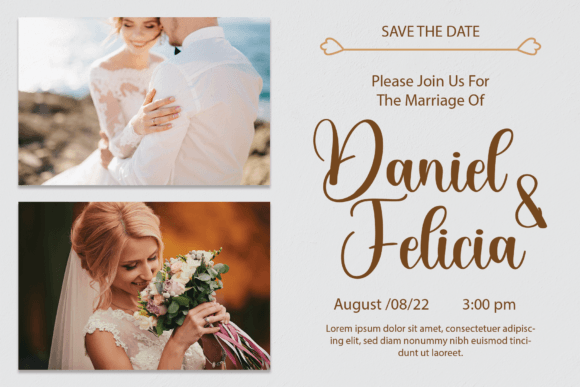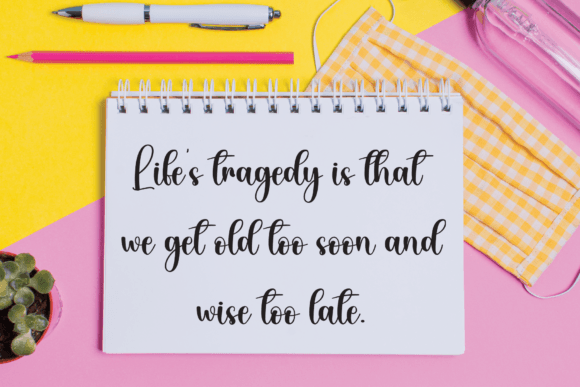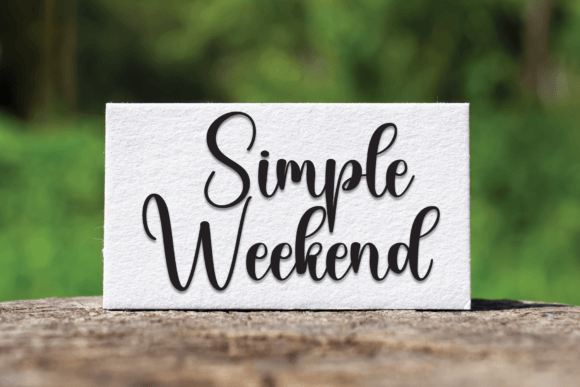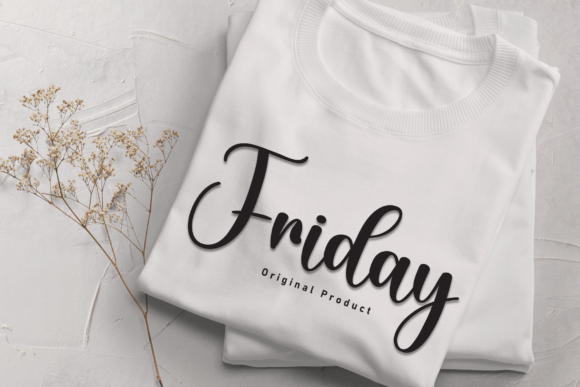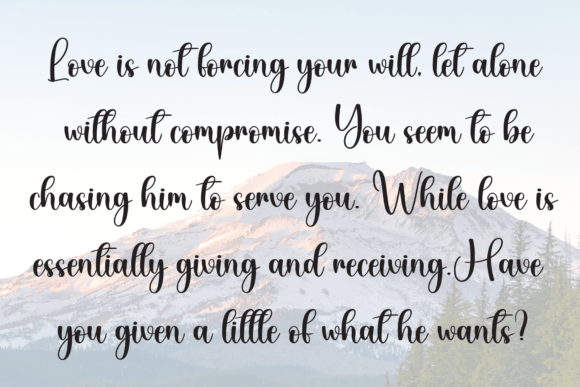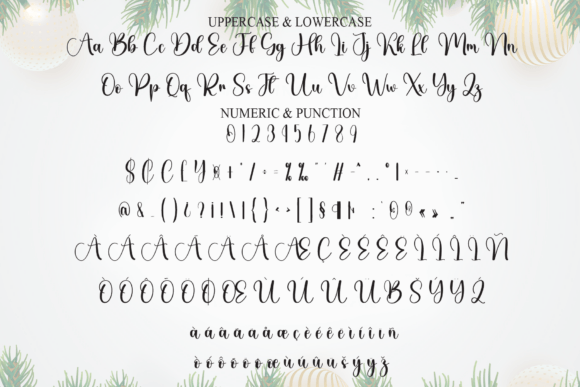
Discover the Whimsical Charm of Amelia Christmas Font
Are you looking for a font that adds a touch of playfulness and sweetness to your designs? Look no further than the Amelia Christmas Font. This delightful, handwritten display font is perfect for crafters and designers who want to infuse their creations with a friendly and whimsical vibe.
The Perfect Font for Playful Designs
Amelia Christmas Font is a beautifully crafted font that exudes a lighthearted and adorable nature. Its unique, handwritten style makes it an excellent choice for designs that require a personal touch. Whether you’re creating wedding invitations, greeting cards, or social media graphics, this font is sure to add a fun-filled vibe to your work.
Key Features of Amelia Christmas Font
- Whimsical and Handwritten Style: Amelia Christmas Font boasts a charming, handwritten style that’s perfect for creating playful and eye-catching designs.
- Sweet and Friendly Vibe: This font naturally accents any creation with a sweet and friendly vibe, making it ideal for designs that require a personal touch.
- Perfect for Wedding Invitations and Cards: The font’s elegant and playful style makes it an excellent choice for crafting enchanting wedding invitations and captivating cards.
- Easy to Read and Versatile: Amelia Christmas Font is easy to read and works well in a variety of design contexts, from digital graphics to print materials.
How to Use Amelia Christmas Font in Your Designs
Using Amelia Christmas Font in your designs is easy. Here are a few ideas to get you started:
- Wedding Invitations: Add a touch of whimsy and romance to your wedding invitations with Amelia Christmas Font.
- Greeting Cards: Create captivating greeting cards for birthdays, holidays, and special occasions with this delightful font.
- Social Media Graphics: Use Amelia Christmas Font to add a playful touch to your social media graphics, such as Facebook posts, Instagram stories, and Twitter headers.
- Digital Art and Illustrations: Incorporate Amelia Christmas Font into your digital art and illustrations to add a touch of personality and whimsy.
Tips for Getting the Most Out of Amelia Christmas Font
Here are a few tips for getting the most out of Amelia Christmas Font:
- Experiment with Font Sizes and Colors: Play around with different font sizes and colors to find the perfect combination for your design.
- Pair with Other Fonts: Pair Amelia Christmas Font with other fonts to create a unique and visually appealing design.
- Use in Combination with Graphics and Images: Use Amelia Christmas Font in combination with graphics and images to add an extra layer of depth and interest to your design.
Amelia Christmas Font is a delightful, handwritten display font that’s perfect for designers and crafters who want to add a touch of whimsy and playfulness to their designs. With its sweet and friendly vibe, this font is ideal for creating enchanting wedding invitations, captivating cards, and eye-catching digital graphics. So why wait? Download Amelia Christmas Font today and start elevating your design aesthetics with its unique and charming style.